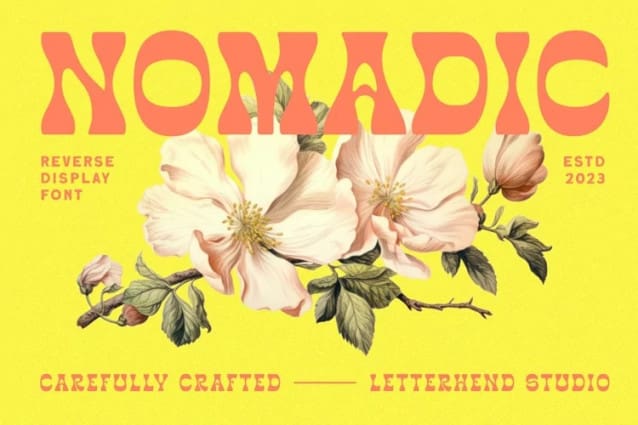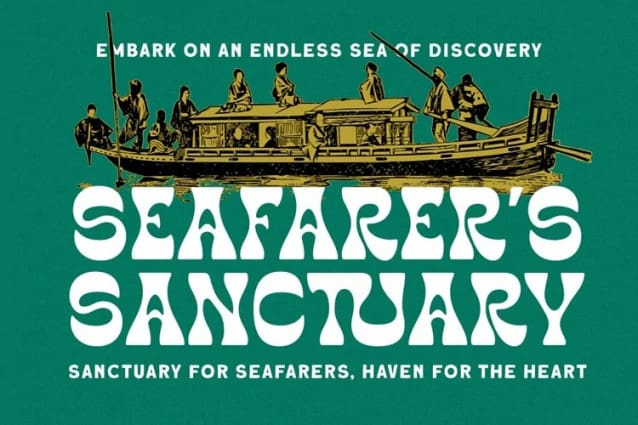
Nomadic Display Font
Nomadic Display Font is a reverse display font with classic looks. This type of font perfectly made to be applied especially in storybook children or child theme which is need a standout font, and the other various formal forms such as invitations, labels, logos, magazines, books, greeting / wedding cards, packaging, fashion, make up, stationery, novels, labels or any type of advertising purpose.